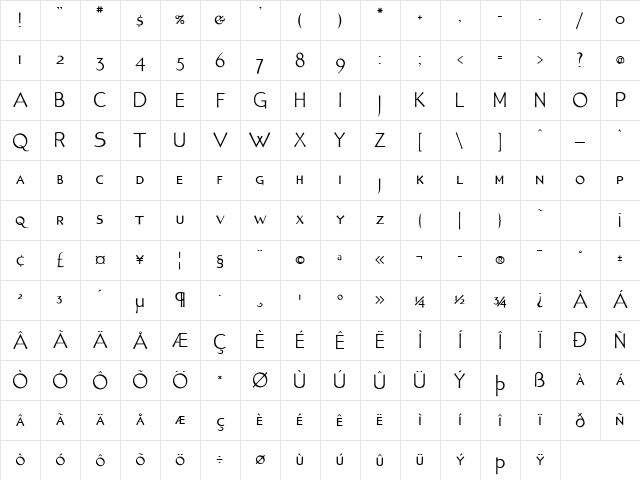
Tonic is a composed and adaptable typeface that performs quietly and consistently across a wide range of design contexts.
Who designed the Tonic Regular font?